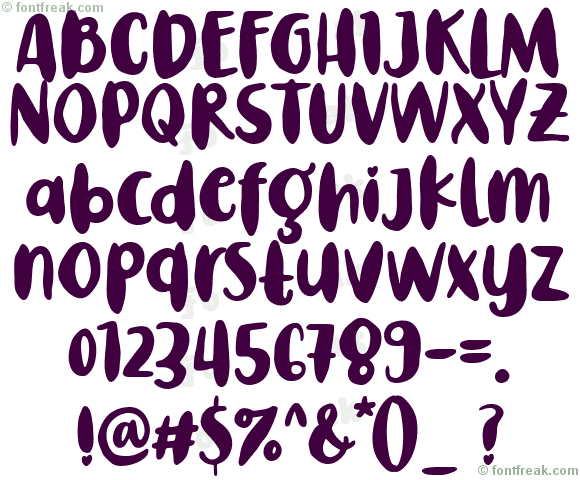
Chubby Boys
The Chubby Boys font, designed by Situjuh Nazara and released in 2018, is a playful and bold display typeface that captures attention with its unique style. As a decorative font, Chubby Boys features rounded, thick strokes that add a friendly and approachable feel to any design. The consistent stroke weight and minimal contrast create a harmonious look, while the ample spacing between letters enhances readability, making it perfect for various applications.
This font excels in several use cases, standing out in contexts such as children's book covers, playful restaurant menus, and vibrant party invitations. Its cheerful aesthetic is also well-suited for branding projects targeting a younger demographic or family-oriented businesses. Graphic designers will appreciate its versatility, as it can inject warmth and personality into marketing materials, social media graphics, and event promotions.
The target audience for Chubby Boys includes graphic designers, small business owners, and content creators looking for a font that conveys a sense of fun and creativity. Its unique characteristics make it an ideal choice for those who want to make a memorable impression with their visual communications.
What sets the Chubby Boys font apart is its distinctive, whimsical nature that combines simplicity with charm. This font is designed to evoke joy and playfulness, making it an excellent option for projects aimed at children or those that seek to invoke a sense of nostalgia. For anyone looking to incorporate this delightful typeface into their work, a Chubby Boys font free download is available, allowing for easy access to a design element that can elevate any project. Embrace the uniqueness of Chubby Boys and let your creativity shine.